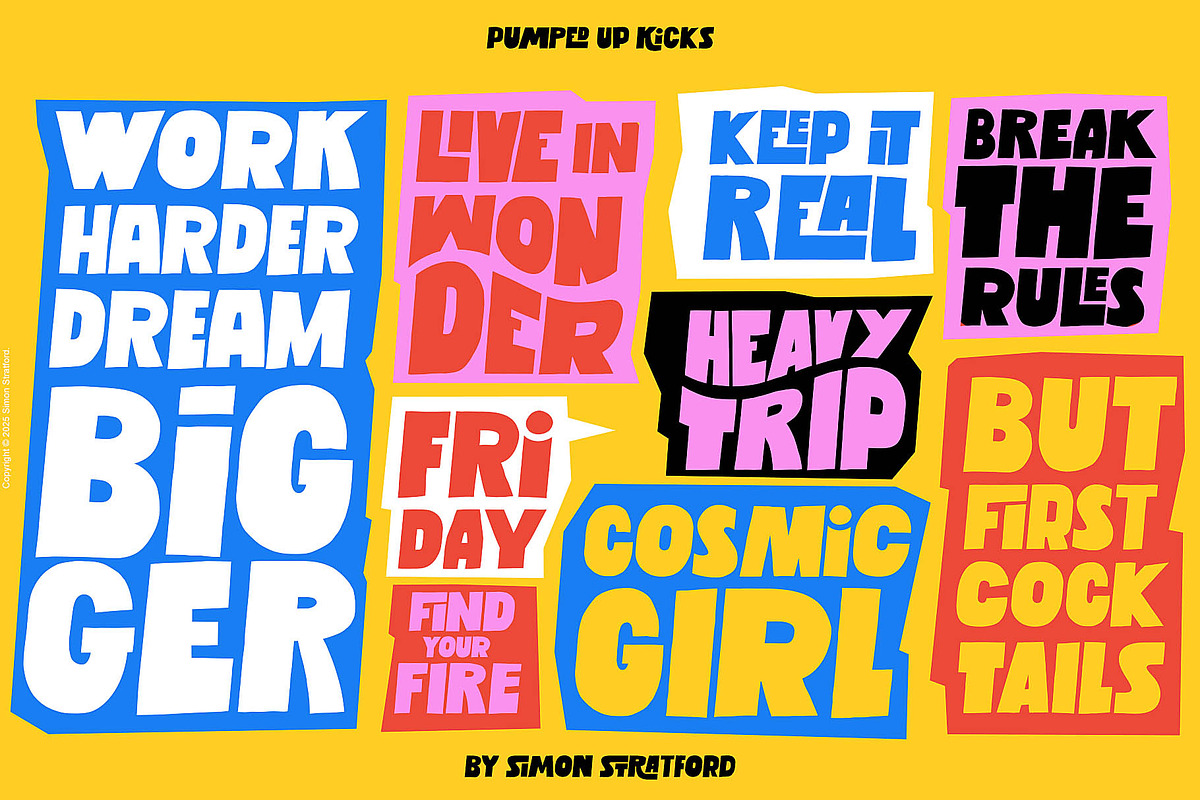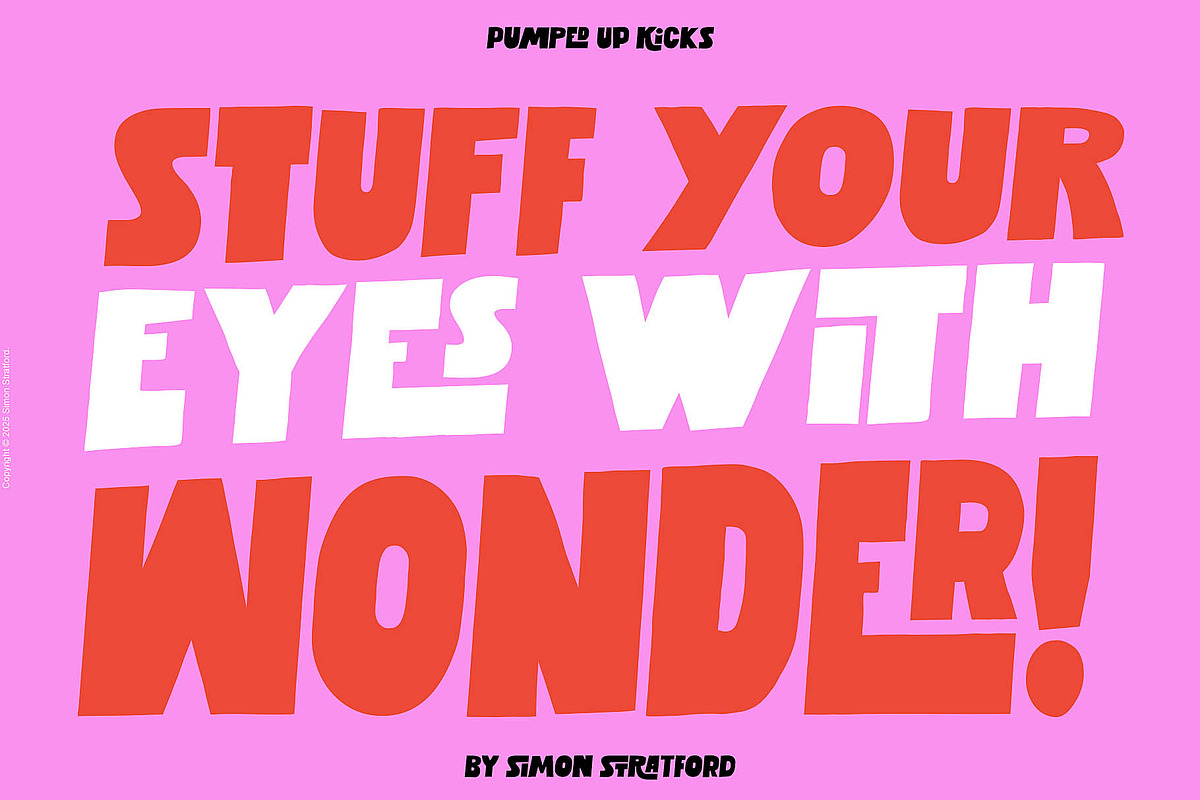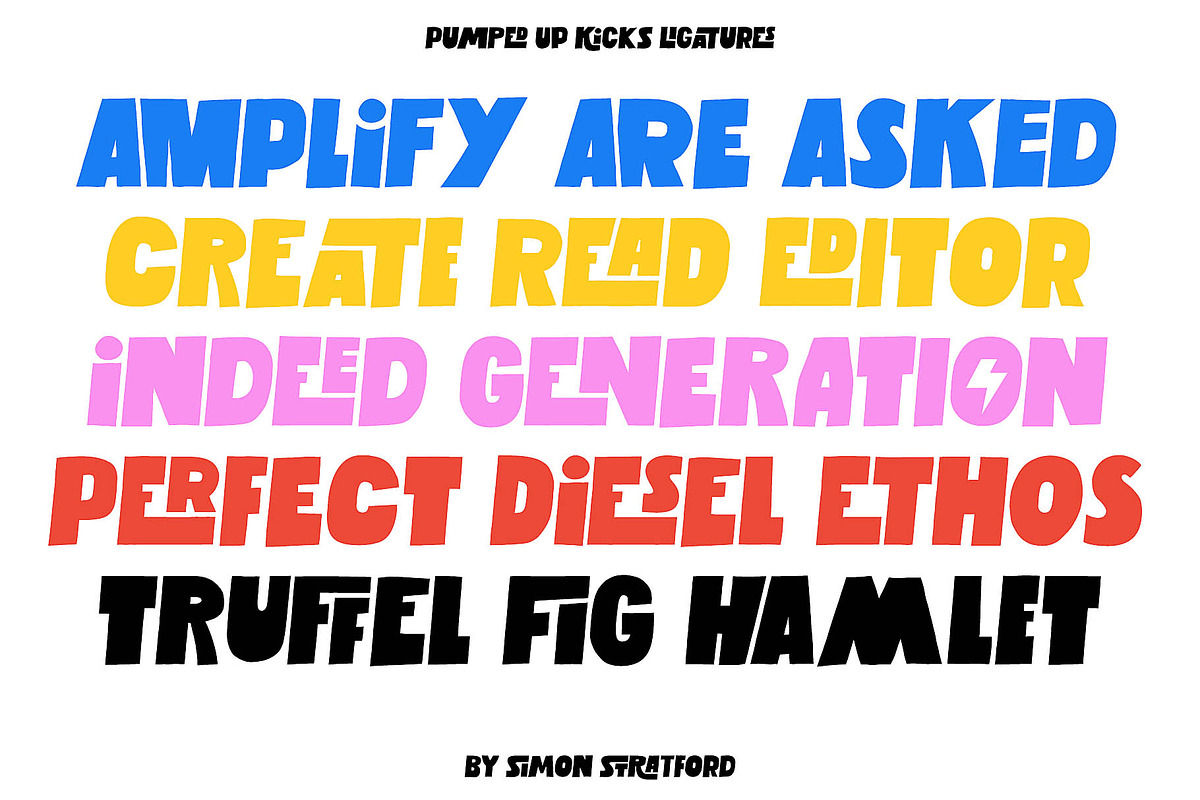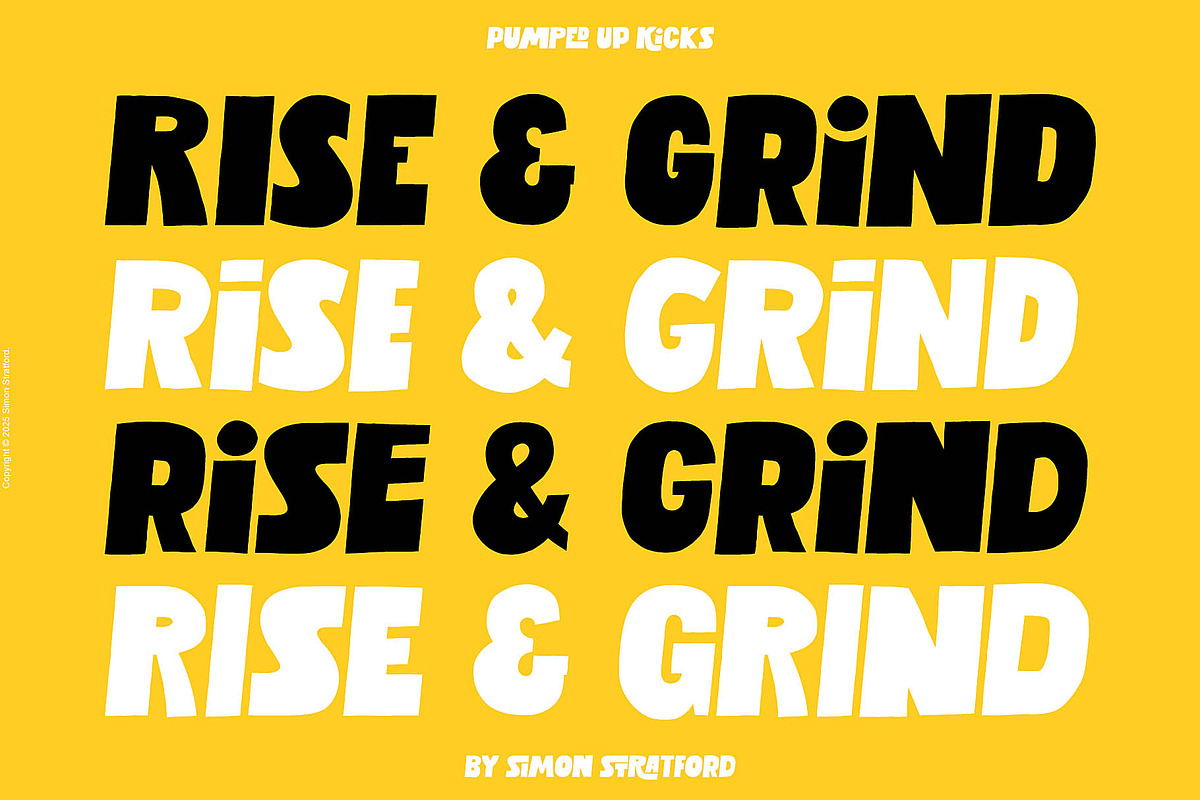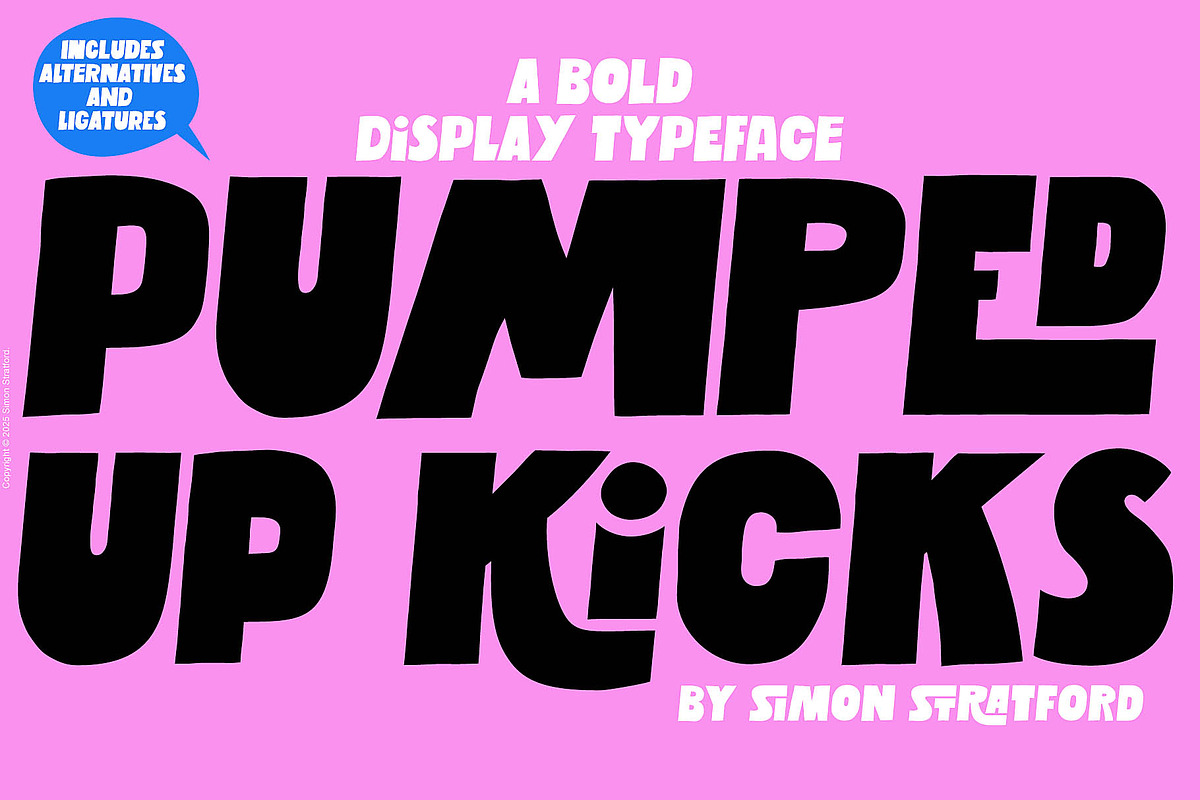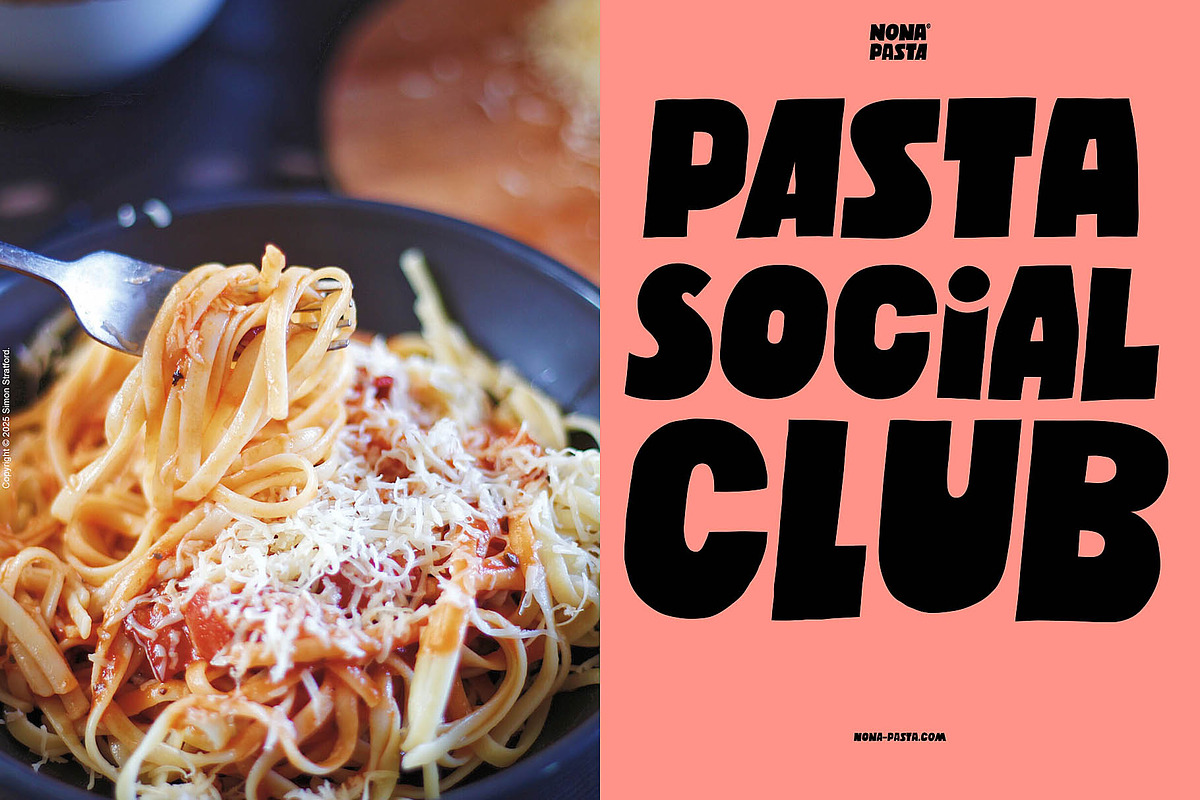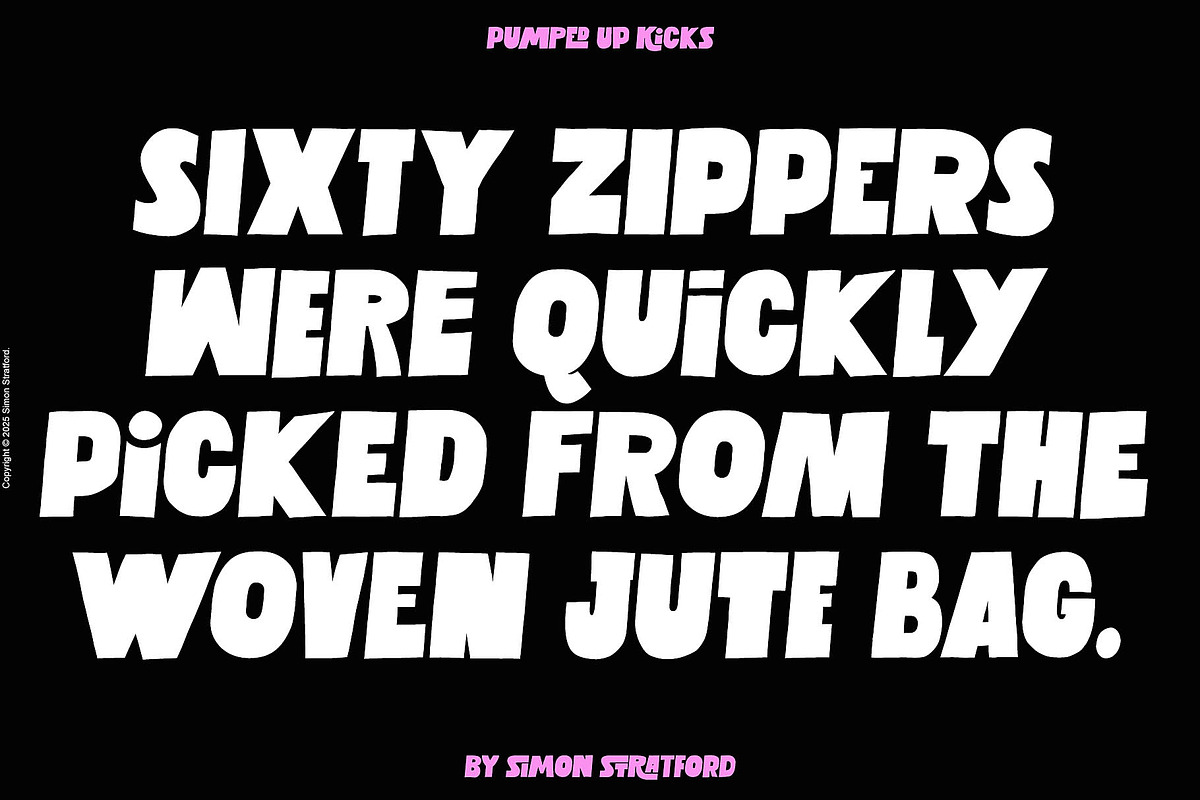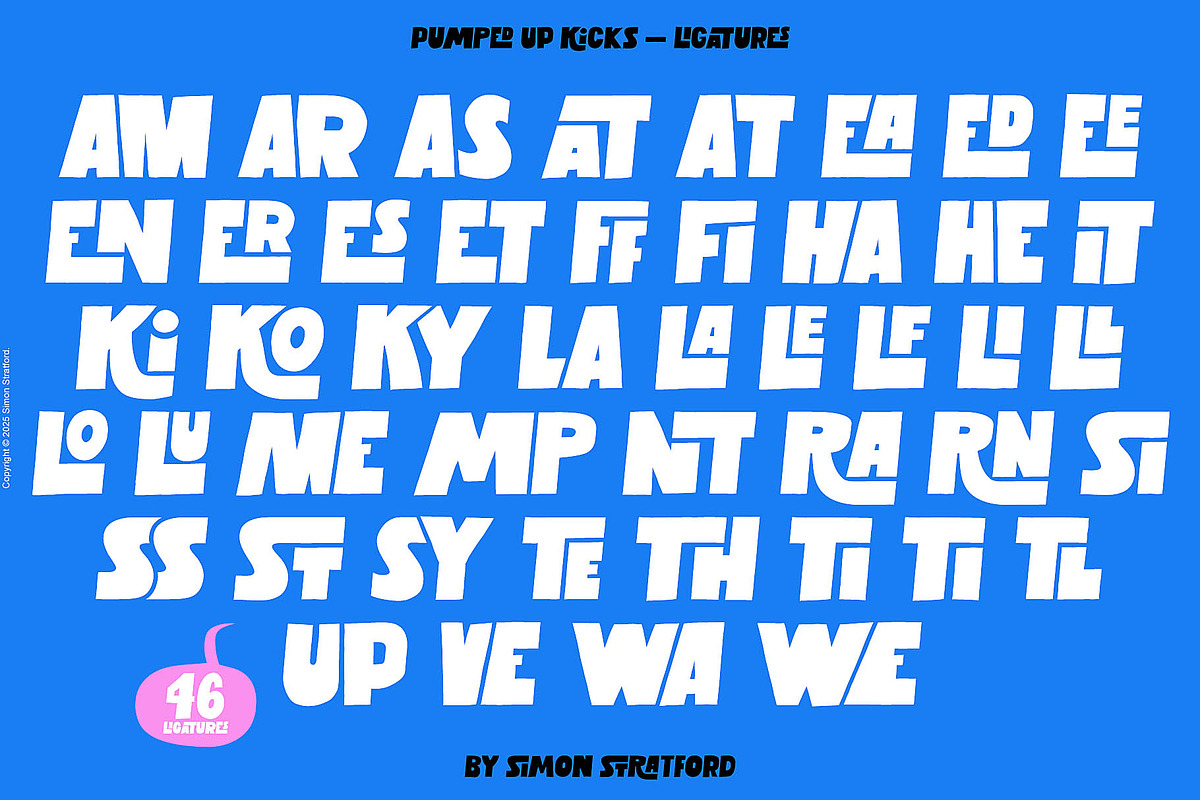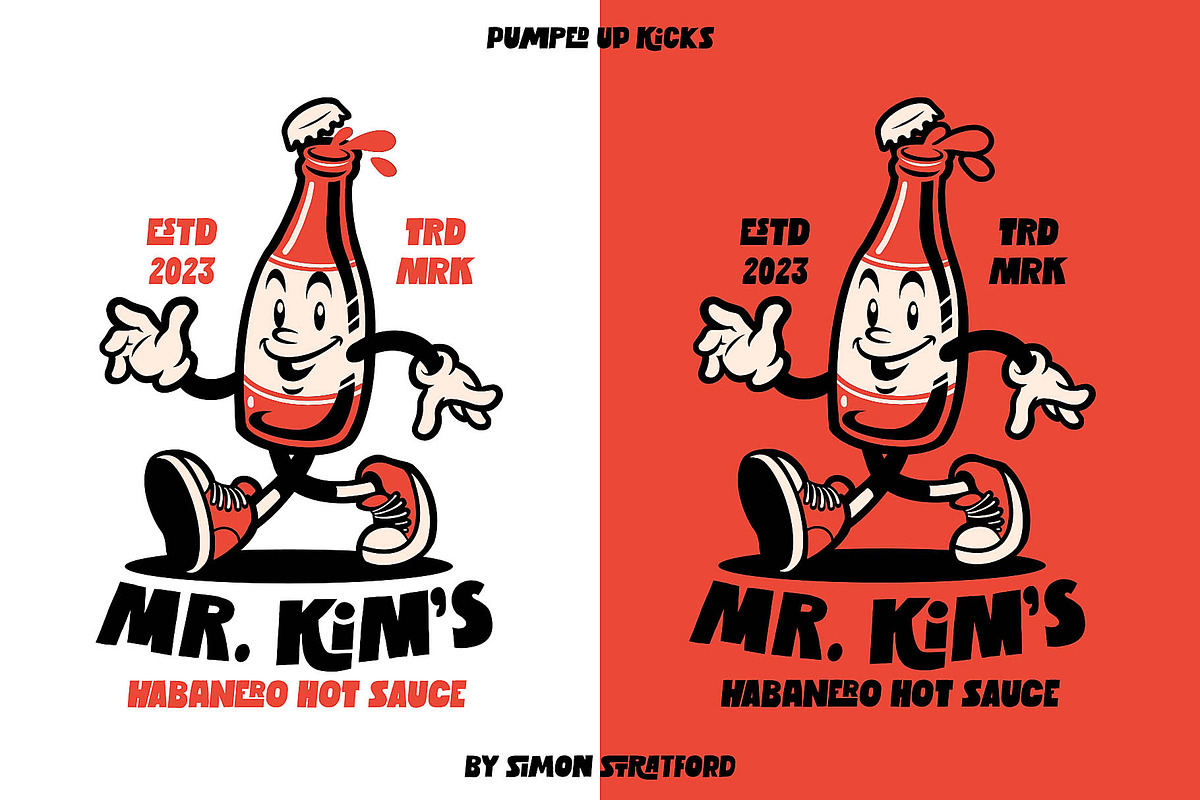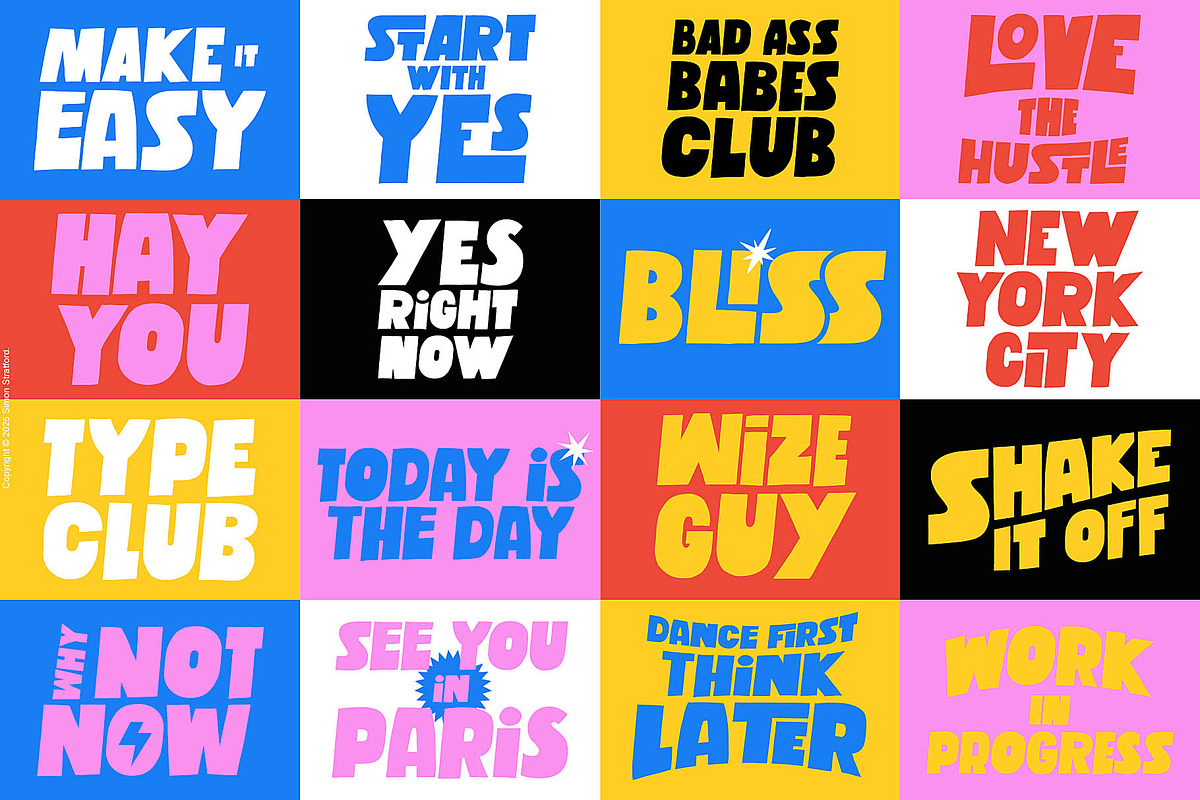
Display font Pumped up kicks
Introducing Pumped Up Kicks A modern typeface full of energy and fun.
Bold, playful, and bursting with personality, Pumped Up Kicks is a sans-serif display font that exudes energy and liveliness. Perfect for designs that demand attention, this font combines creativity with functionality to deliver a truly unique aesthetic.
Distinct charm
The large, crisp characters are complemented by delightfully uneven lines, giving the typeface a distinct charm. Its unconventional style ensures it stands out, with some letters dipping below the baseline while others rise just above it. This subtle irregularity adds a playful, handcrafted touch to any project.
All uppercase font
Designed exclusively with capital letters, Pumped Up Kicks is an all-uppercase font. To enhance versatility, it includes alternate uppercase glyphs for the lowercase characters, allowing for creative variations and added visual interest.
Whether you're looking to inject energy into branding, posters, or social media graphics, Pumped Up Kicks promises to deliver bold impact and a fresh, spirited vibe.
Stylistic Alternatives
Pumped Up Kicks features alternate glyphs for A–Z, ensuring your typography is anything but ordinary. For example, if a word contains two letter A’s, you can switch one out for an alternate version to create a more dynamic and unique look.
Most letters come with at least three stylistic variations, while some offer as many as seven, giving you a wide range of options to customize your designs.
This typeface also includes a variety of ligatures, allowing specific letter combinations to automatically transform into unique, custom designs (e.g., “LO” or “RA”). Keep in mind, ligatures will only activate when you type in uppercase.
These ligatures add a handcrafted feel to your design, helping you create something truly special that captures attention and stands out.
Font usage
With bold uppercase characters that offer excellent readability, Pumped Up Kicks is perfect for making a statement. Whether you want to grab attention or leave a lasting impression, this font ensures your message is delivered with impact.
Its versatility makes it ideal for a variety of design projects, including:
Signage
Branding
Posters and flyers
Packaging
Pumped Up Kicks is packed with features to elevate your designs, including:
At least three stylistic alternates for A–Z glyphs
46 ligatures for unique letter combinations
Numbers and punctuation
Additional symbol and punctuation glyphs
Support for Western, Central, and Southeastern European languages
If Pumped Up Kicks Were a Celebrity
Imagine Pumped Up Kicks as a celebrity, and Ryan Reynolds comes to mind. With its unique charm and bold personality, it’s both approachable and distinct, delivering a playful yet polished vibe. Like Reynolds, this font is relatable but with just enough unpredictability to keep things exciting.